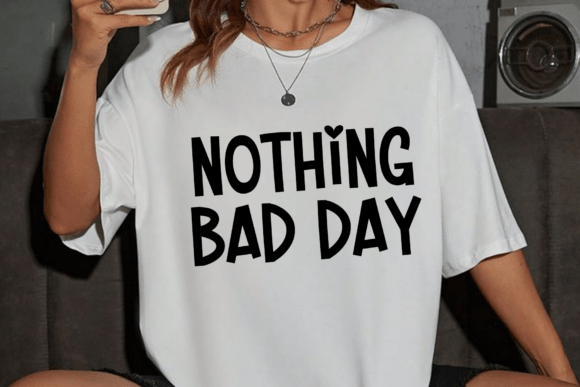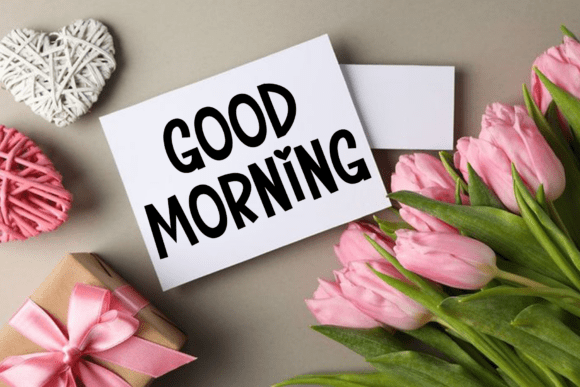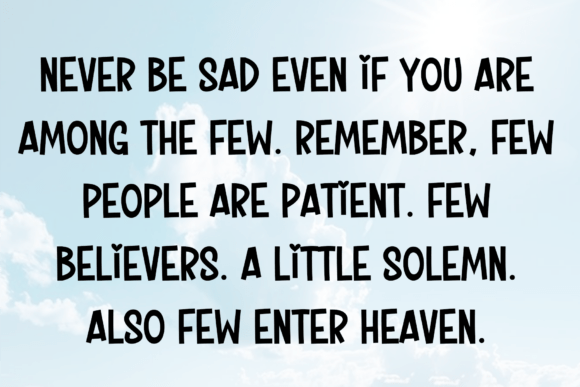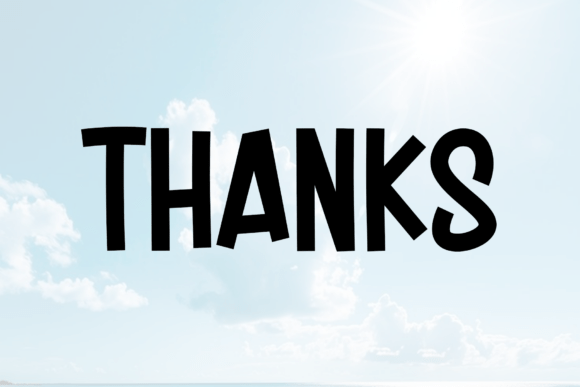
Introduction to Happiness Sometime Font
Have you ever been in a creative flow, staring at a blank page or screen, searching for the perfect font to bring your idea to life? For designers, finding the right font can be a make-or-break moment that determines the success of a project. One font that can elevate your creative project to the next level is the Happiness Sometime Font.
With its clean shapes, soft edges, and well-balanced letterforms, this font exudes a carefree, approachable vibe that’s perfect for posters, branding, packaging, and social media graphics. Its high-quality design and transparent background make it an ideal choice for designers who want to add a fresh and friendly touch to their work.
Key Features of Happiness Sometime Font
- High-quality, hand-drawn design: The Happiness Sometime Font is a unique and creative project that offers a one-of-a-kind design resource for any project.
- Transparent background: This font features a transparent background, making it easy to overlay on any image or design without any distractions.
- High-resolution design: The Happiness Sometime Font is designed at 300 DPI, ensuring that it looks crisp and clear in any resolution.
- Unique characteristics: The font features a playful, handwritten style with a mix of uppercase and lowercase letters, making it perfect for creative projects.
- Perfect for design projects: The Happiness Sometime Font is ideal for use in design projects such as invitations, posters, and social media graphics.
Honest Review: Happiness Sometime Font
As a designer, I’m always on the lookout for high-quality design resources to elevate my creative projects. The Happiness Sometime Font is a great addition to my toolkit.
What works well: ✨ The font has a beautiful, playful feel that’s perfect for projects that require a bit of whimsy. The transparent background option is also a great feature, allowing me to easily layer the font over other design elements. The free download option is a major plus, making it accessible to designers of all levels.
What doesn’t work well: ⚠️ The font’s availability is limited to a few styles, which may not be suitable for projects that require a wide range of font options. Additionally, the font’s legibility can be affected by the size and resolution of the design.
Overall, I’m impressed with the Happiness Sometime Font’s potential to add a touch of personality to my designs. While it may have some limitations, it’s a valuable resource for designers looking for a free, high-quality font.
- Playful, whimsical feel
- Limited availability of font styles
- Legibility can be affected by design size and resolution
Happiness Sometime Font
The Happiness Sometime Font is a high-quality, free download design resource perfect for any creative project. With its unique and playful style, it’s ideal for adding a touch of personality to your designs.
To get the most out of the Happiness Sometime Font, experiment with different font sizes, colors, and combinations to create unique and eye-catching designs.
The Happiness Sometime Font is perfect for social media graphics, blog posts, and other online content. Its playful style makes it ideal for creative projects, such as invitations, posters, and flyers.
Can I customize the Happiness Sometime Font to suit my design needs?